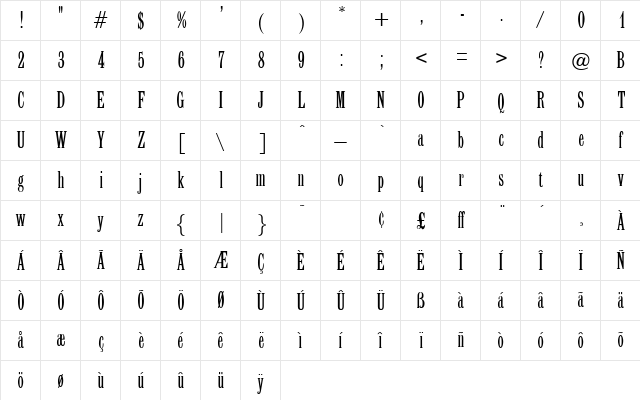
Lattinum Regular
Design Context for Lattinum Typeface
Lattinum takes a measured approach to typography — its balanced proportions and neutral character make it a reliable workhorse for both digital and print work.